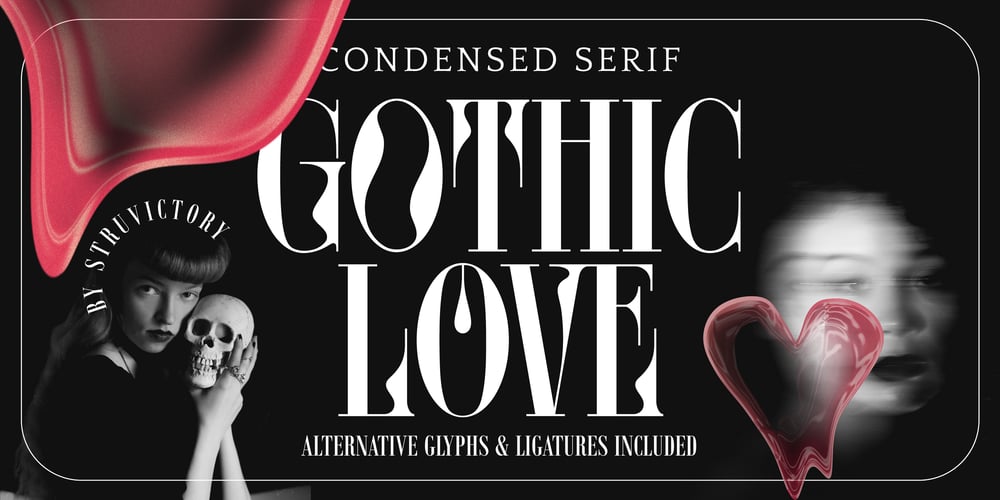
Gothic Love
Gothic Love font
Gothic Love Font Family was designed by Viktoryia Strukouskaya and published by Struvictory.art. Gothic Love contains 1 styles and family package options. Gothic Love is a modern serif font with elegant wavy details. The font is created in condensed proportions with high serifs. The font is suitable for the design on the theme of fashion, feminine branding, mysticism, gothcore, punk, surrealism.